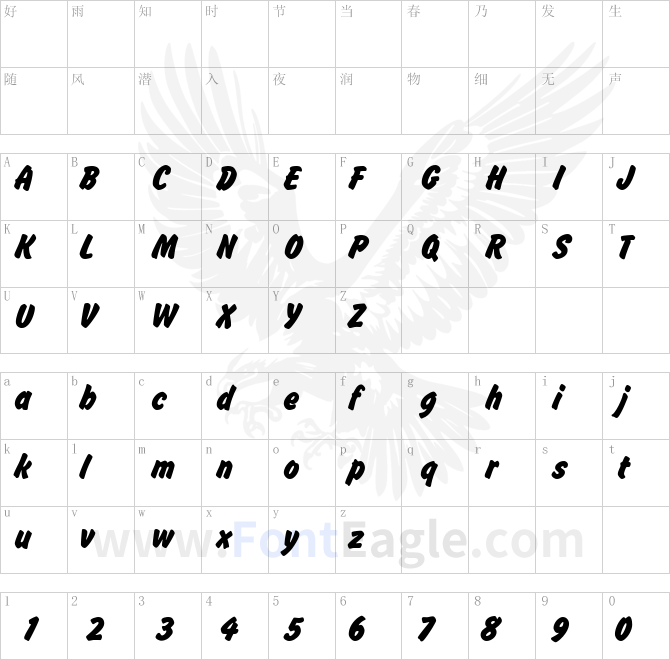
- Font name:Brush Hand New
- Font Version:Brush Hand New (version 1.0) by Keith Bates • © 2013 www.k-type.com
- Font Copyright:© 2013 www.k-type.com • Brush Hand New is a redrawing of Brush Hand, a 1990s font that improved Flash Bold by smoothing, lightening the weight and increasing legibility. The New version refines the outlines, spacing, kerning and adds characters.